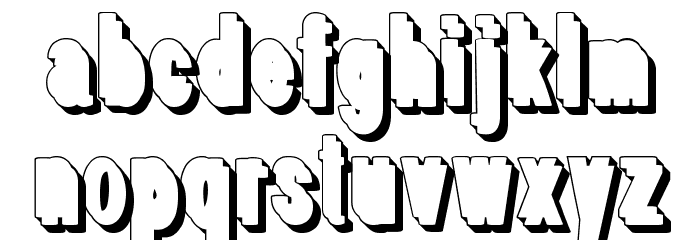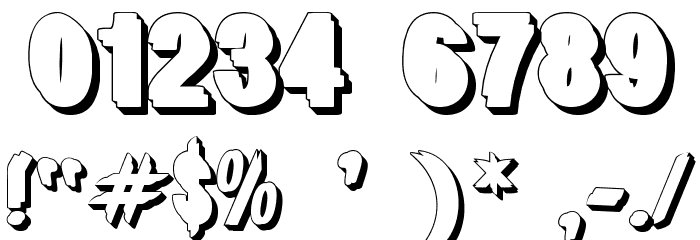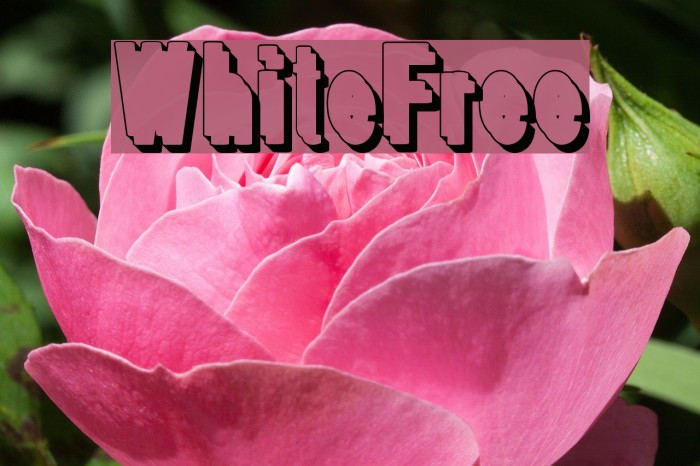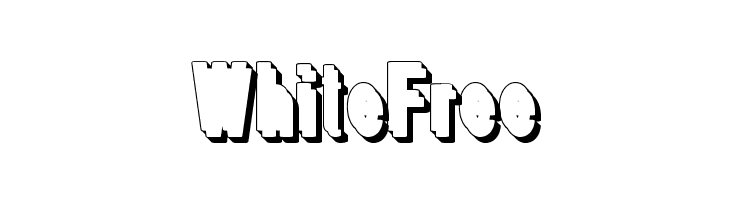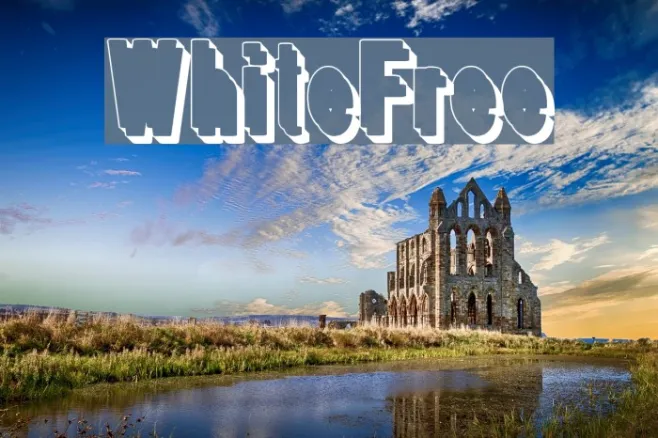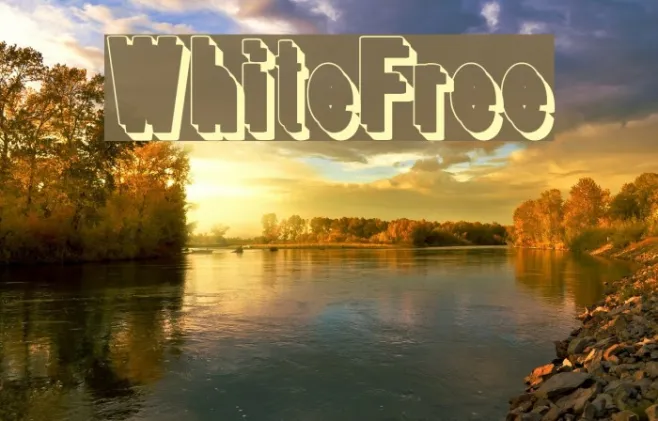
WhiteFree Font
This font features a bold, three-dimensional design with a playful and eye-catching style. The letters are thick and have a shadow effect that gives them a pop-out appearance, making them ideal for attention-grabbing headlines or display purposes. The uppercase and lowercase letters maintain a consistent thickness, while the numbers and special characters follow the same bold and dynamic style. The font's design is both modern and decorative, suitable for projects that require a fun and energetic vibe.
A bold, 3D decorative font with a playful style and shadow effect.
- Proposed Projects: Ideal for posters, banners, children's book covers, and playful branding materials.
- Overall Style: Modern, Decorative